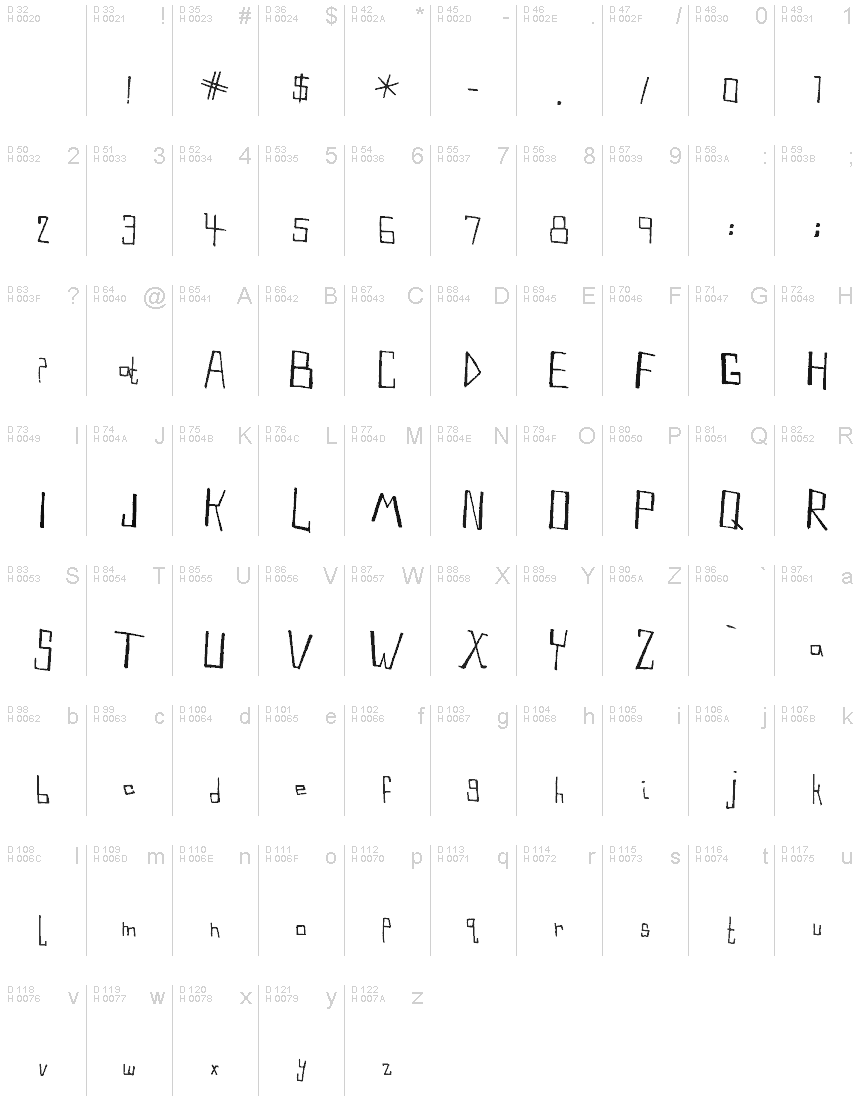
NaturalProducts
Natural Products is a captivating display font that exudes a whimsical, cartoon-inspired aesthetic. Designed by Max Infeld, this light-weight typeface boasts unique, organic shapes that evoke a sense of natural, handcrafted charm. The irregular, hand-drawn lines and playful, uneven strokes give the font a delightfully casual and approachable vibe, making it an excellent choice for a variety of creative applications, from greeting cards and packaging to children's books and advertisements. Its versatility allows it to seamlessly blend into playful, nature-inspired design compositions while adding a touch of quirky personality.
This font would particularly thrive in projects that aim to convey a sense of warmth, authenticity, and approachability, such as branding for eco-friendly products, artisanal food items, or children's educational materials. Its distinctive style could also lend itself well to logo designs, headlines, and decorative text elements that seek to capture a whimsical, hand-crafted aesthetic.